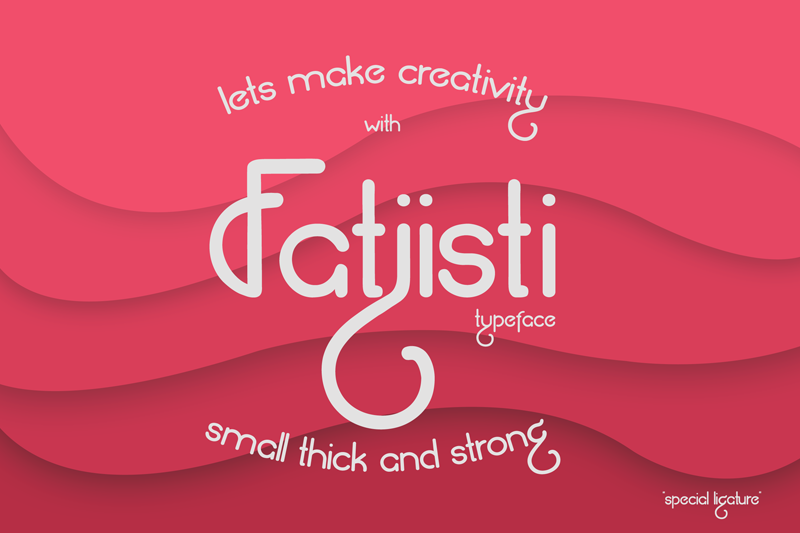
Font name: | Fatjisti |
Author: | nrlmstf |
font these letters are small and thick, emphasizing each sentence perfect for , poster, logo, magazine, cover, banner, tshirt and headers, or even large-scale artwork. Fatjisti.ttf By nrlmstf (copyright) 2019 Donate to (paypal) : ndasemsoc@gmail.com paypal.me/nrlmstf Email contact : ndasemsoc@gmail.com instagram : @karikaturmotion if there are question or business interest, please contact me via email above t h a n k s . |